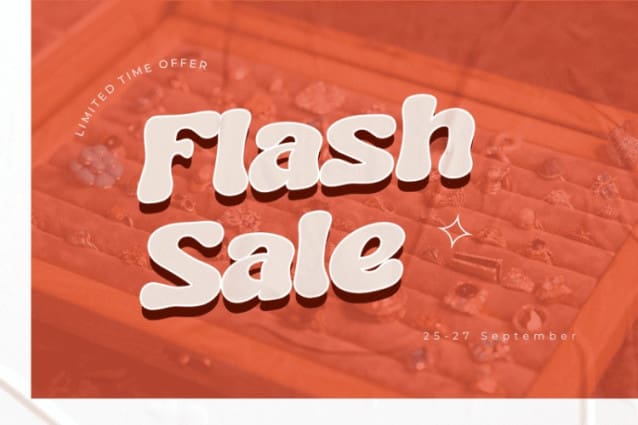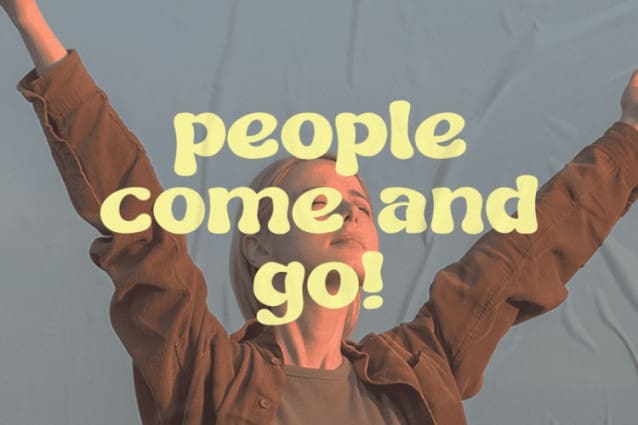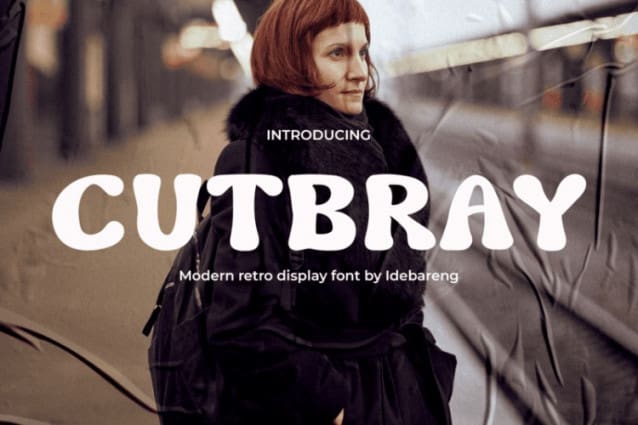
Cutbray Display Font
Cutbray Display Font is a modern retro display font that captures the essence of classic design with a contemporary twist. The font features sharp, clean lines and bold shapes that make it perfect for a wide range of design applications. It’s ideal for logos, branding, headlines, posters, and any other design project where a bold and stylish font is required.
The classic design of Cutbray Display, combined with its modern elements, makes it an ideal choice for businesses looking to create a strong brand identity. The font has a timeless quality that appeals to a wide range of audiences, from young to old, making it an excellent choice for companies that want to stand out from the crowd.
Cutbray’s clean lines and simple design make it an excellent choice for film and movie posters, as well as YouTube thumbnails. Its bold, eye-catching appearance is perfect for catching the viewer’s attention and conveying the message in a clear and concise way.
Overall, Cutbray Display is a versatile and modern font that offers a touch of retro charm to any design project. Its timeless appeal and contemporary design make it a popular choice among designers and businesses alike, looking for a font that stands out and is memorable.